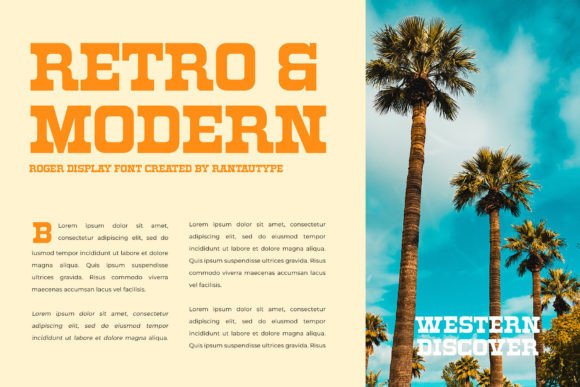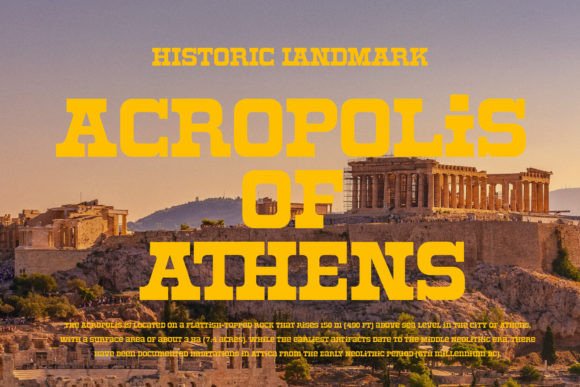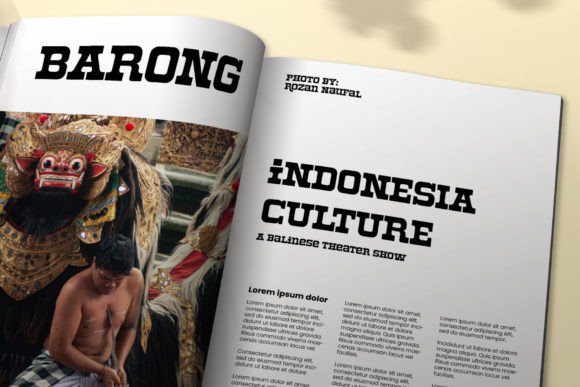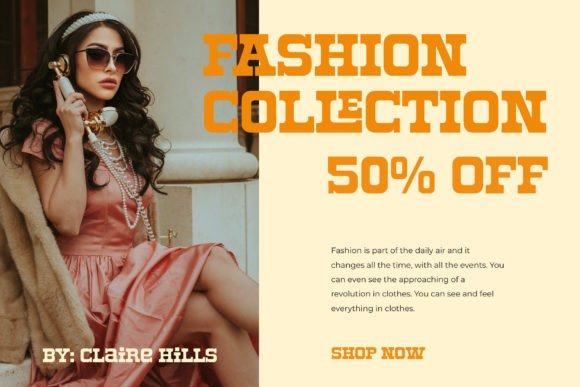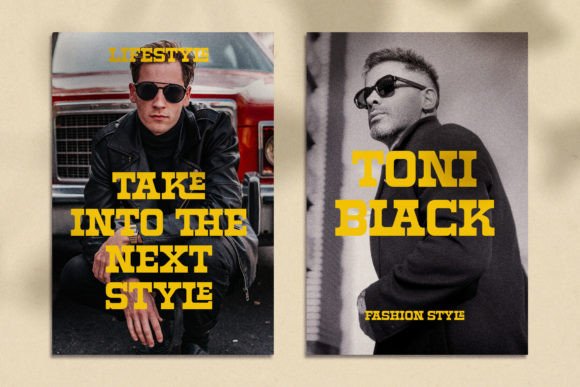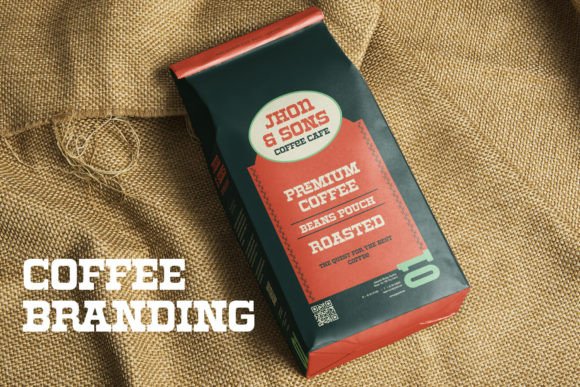
Introduction to Roger Display Font Font
Fonts play a crucial role in design, and the Roger Display Font font is a typeface that brings both character and versatility to any project. Whether you’re working on a branding project, a website, or a print design, the Roger Display Font font offers a unique style that can elevate your work.
Roger Display is a beautiful display typeface inspired by the midcentury southwestern type we keep this font look retro but modern.
Roger display comes with more alternate and ligature to make it more option design This fun font can be used for retro and modern design.
Key Features of Roger Display Font Font
Why Choose Roger Display Font Font?
The Roger Display Font font is more than just a typeface – it’s a design tool that helps you communicate your message with style and clarity. Its unique character set and versatile design make it suitable for a wide range of applications, from elegant invitations to bold headlines.
With its carefully crafted letterforms and balanced proportions, the Roger Display Font font ensures readability and visual appeal across all mediums.
What makes Roger Display Font font special?
The Roger Display Font font stands out with its unique design, exceptional readability, and versatility across various design applications.